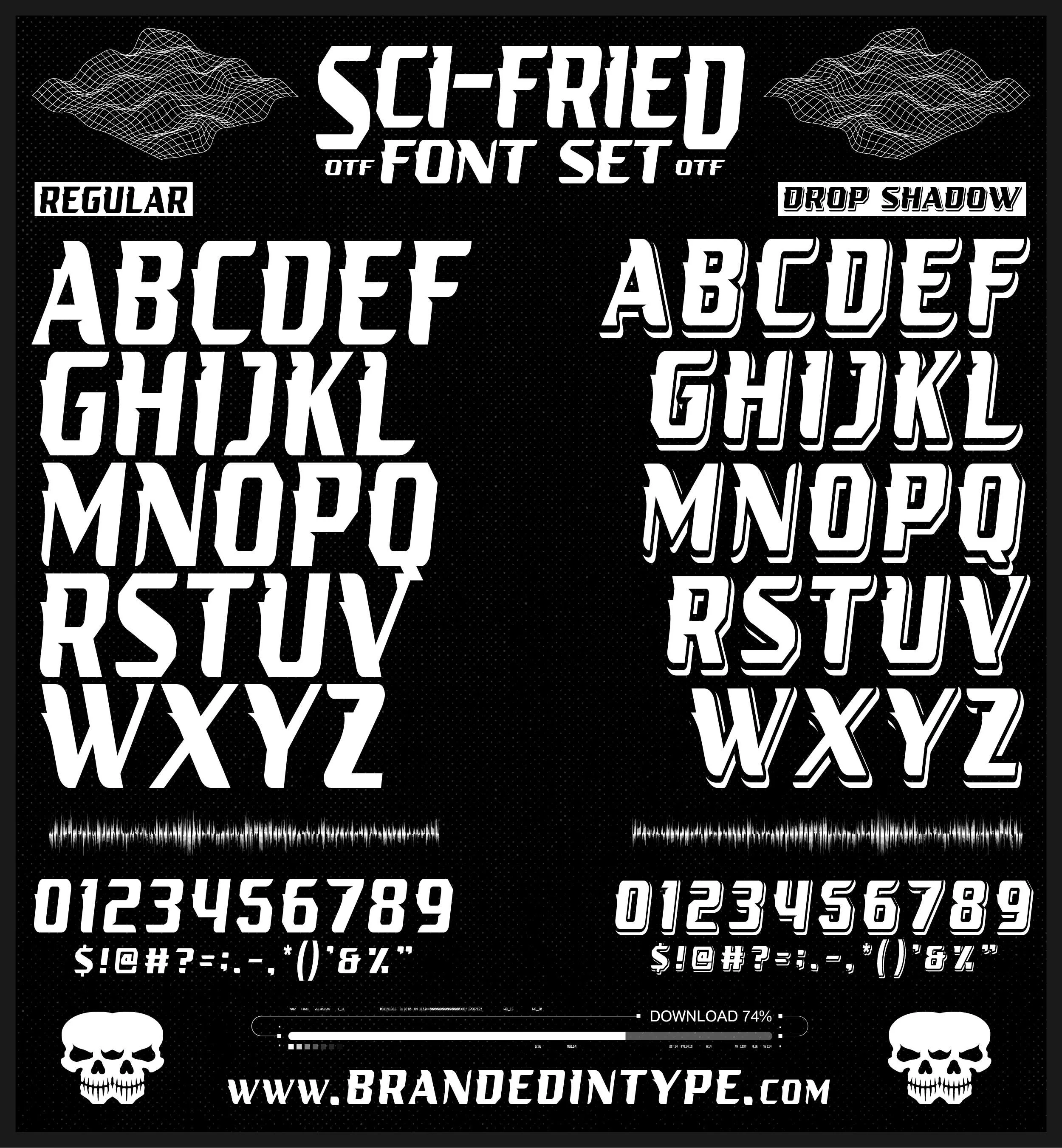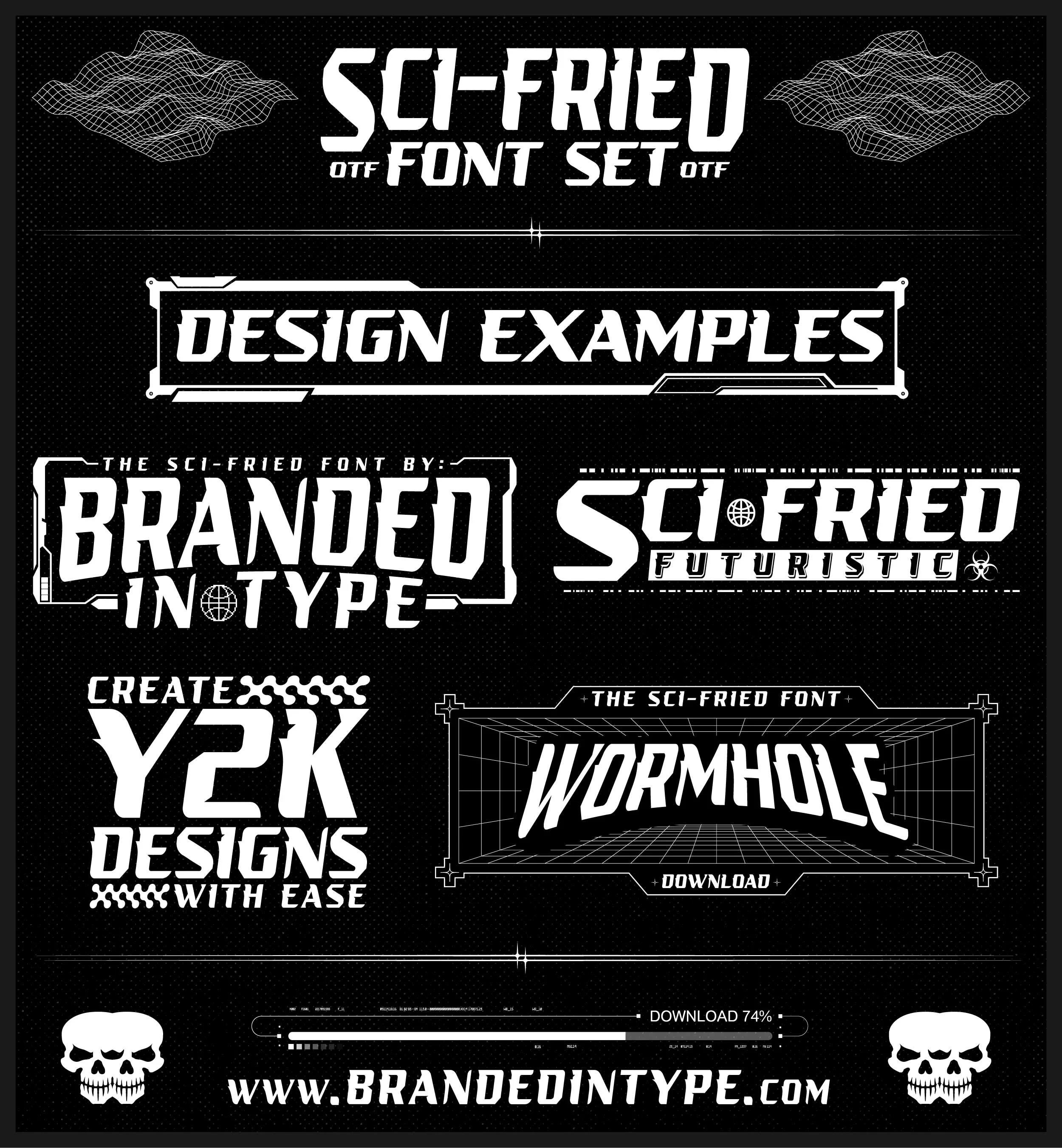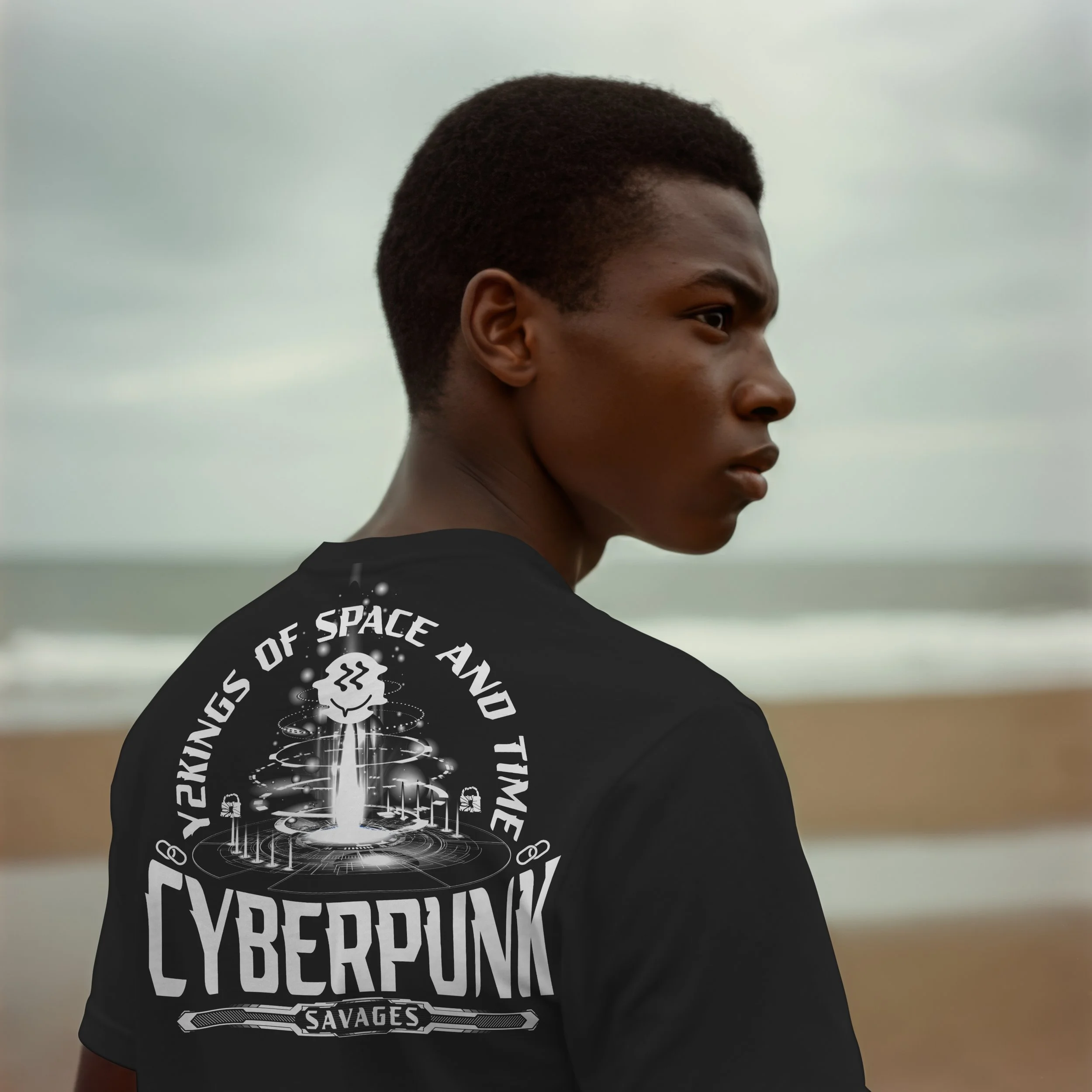
Sci-Fried - Font
The Sci-Fried Font is a Futuristic Sci-fi Font created specifically for Sci-fi, Modern, and Technology designs. Its unique, futuristic styles make your typography stand out, ideal for Cryptocurrency, technology, film, and Sci-fi themes. Anthem's modern aesthetics bring a tech-inspired feel to any project, perfect for expressing your main ideas.
Each font is professionaly Kerned(spaced). No strange gaps in between your letters or odd raised or dropped down letters to found!